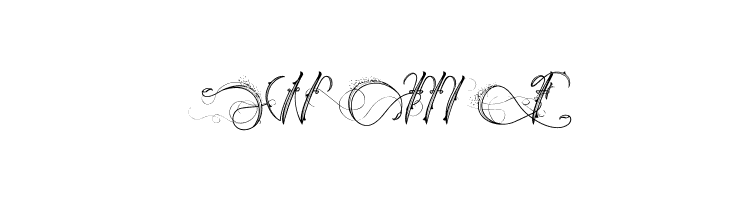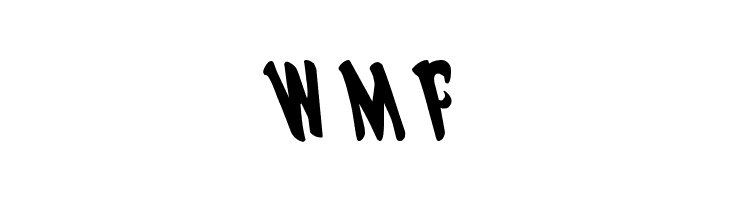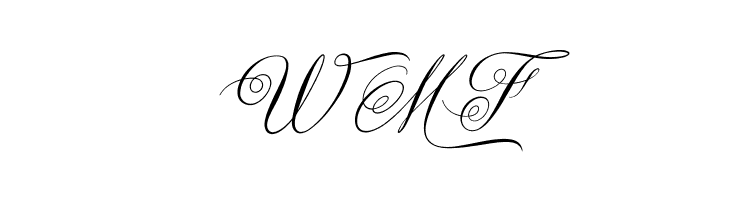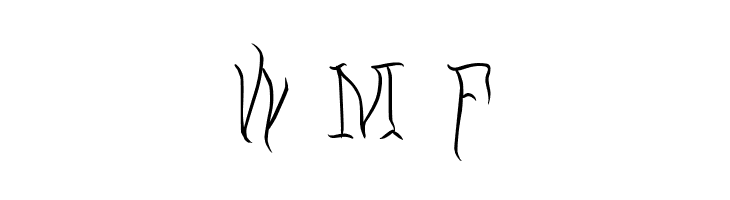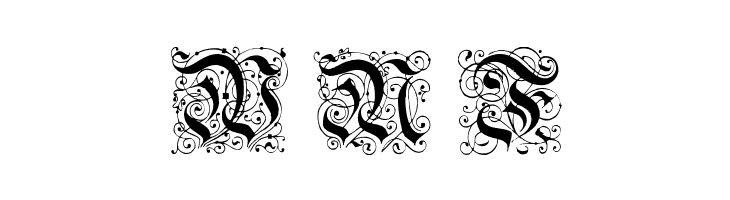
An ornate and decorative script font with intricate flourishes.
A bold, slanted, and playful font with exaggerated curves and decorative flourishes.
An ornate and decorative font with elaborate swirls and flourishes.
A whimsical, artistic font with fluid, curvy lines and playful flourishes.
An ornate, baroque-inspired decorative font with intricate flourishes.
An ornate and decorative font with intricate patterns and flourishes.